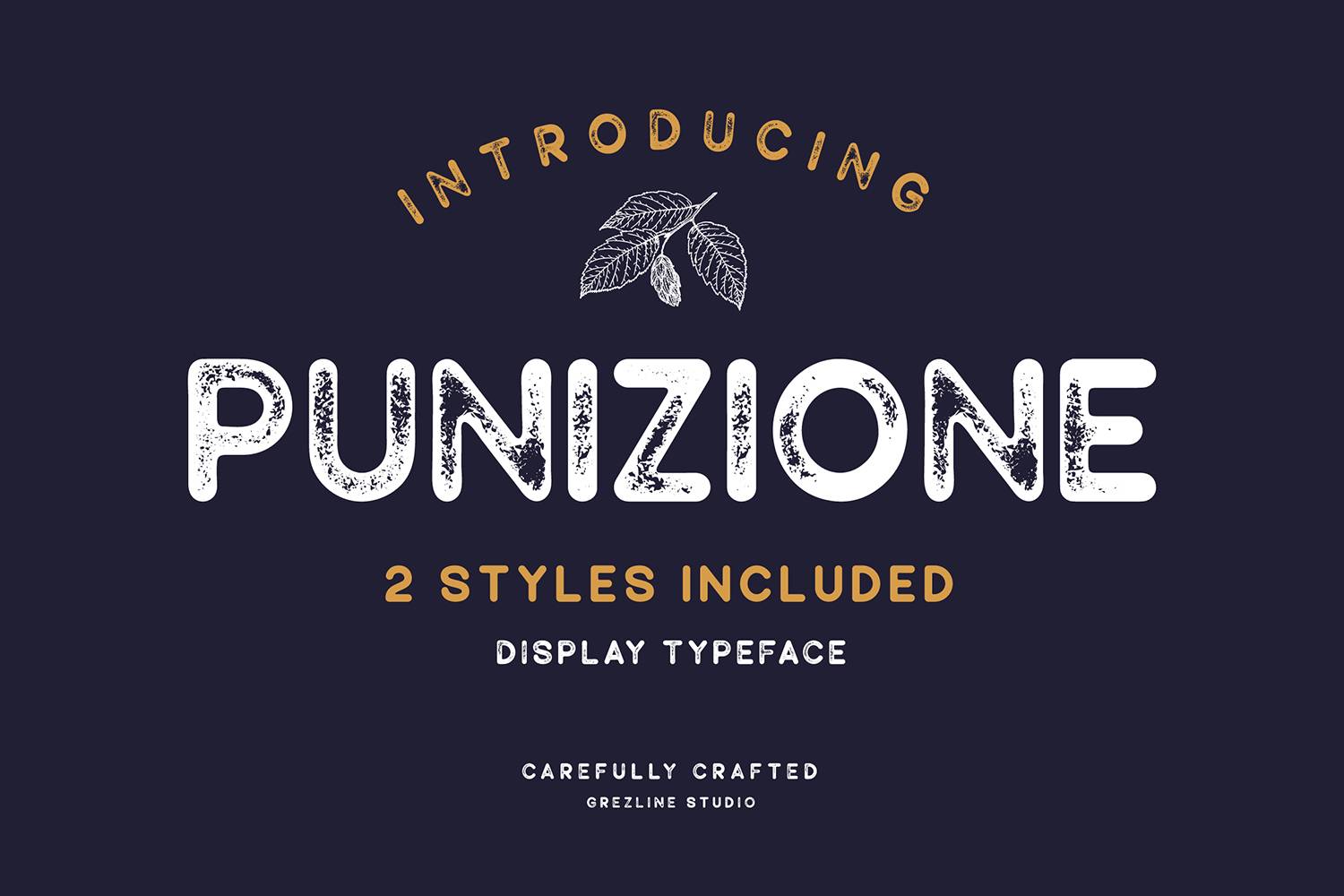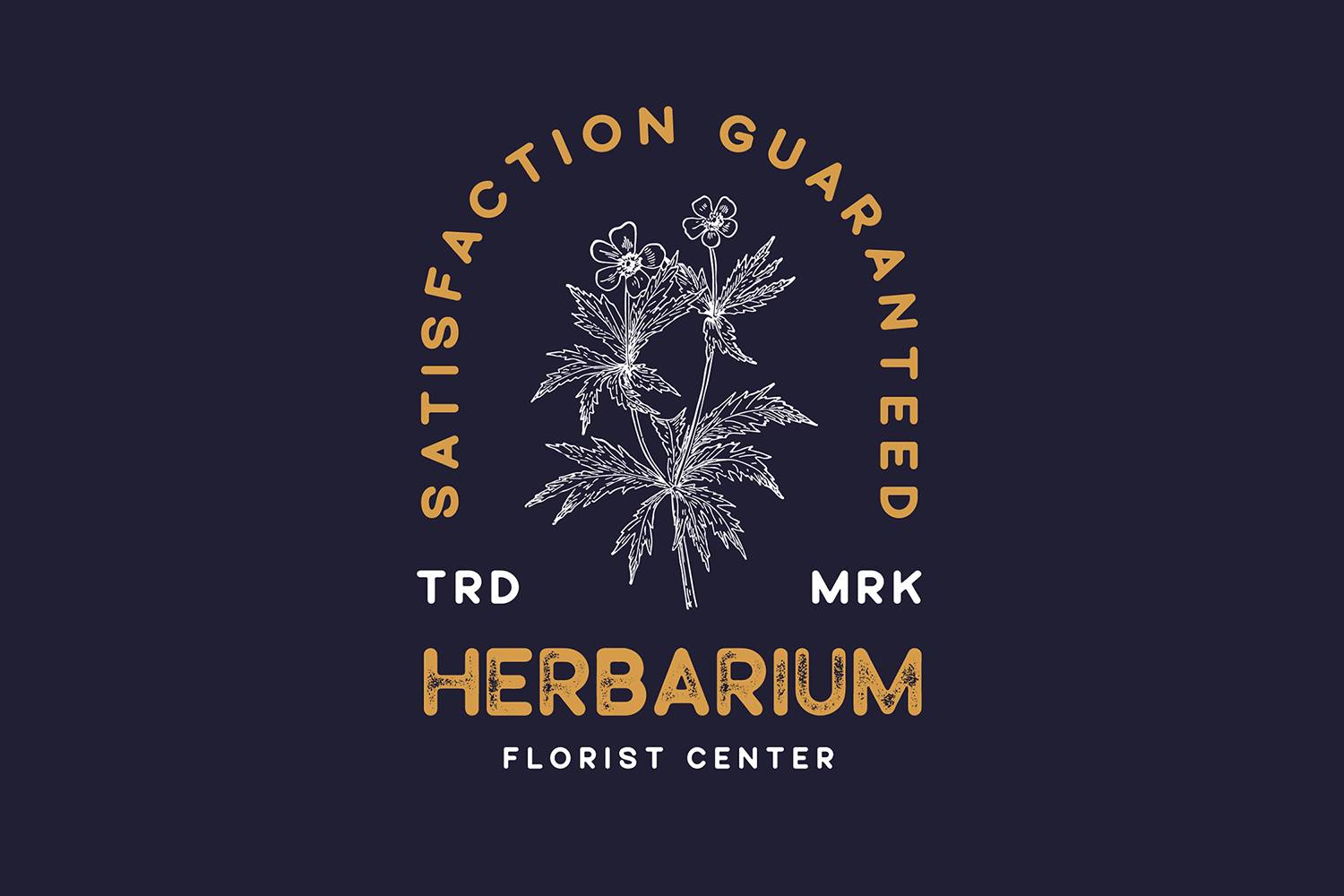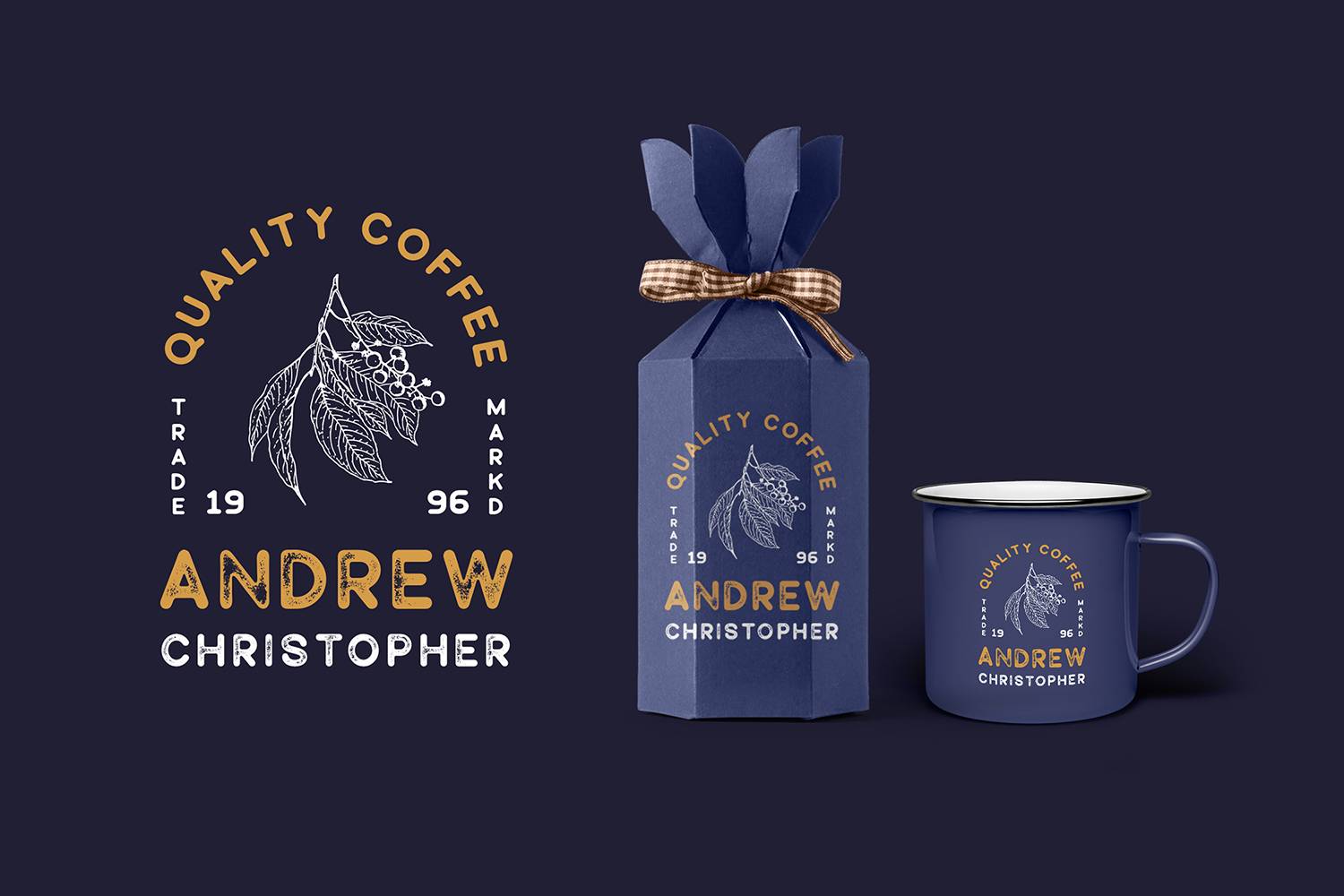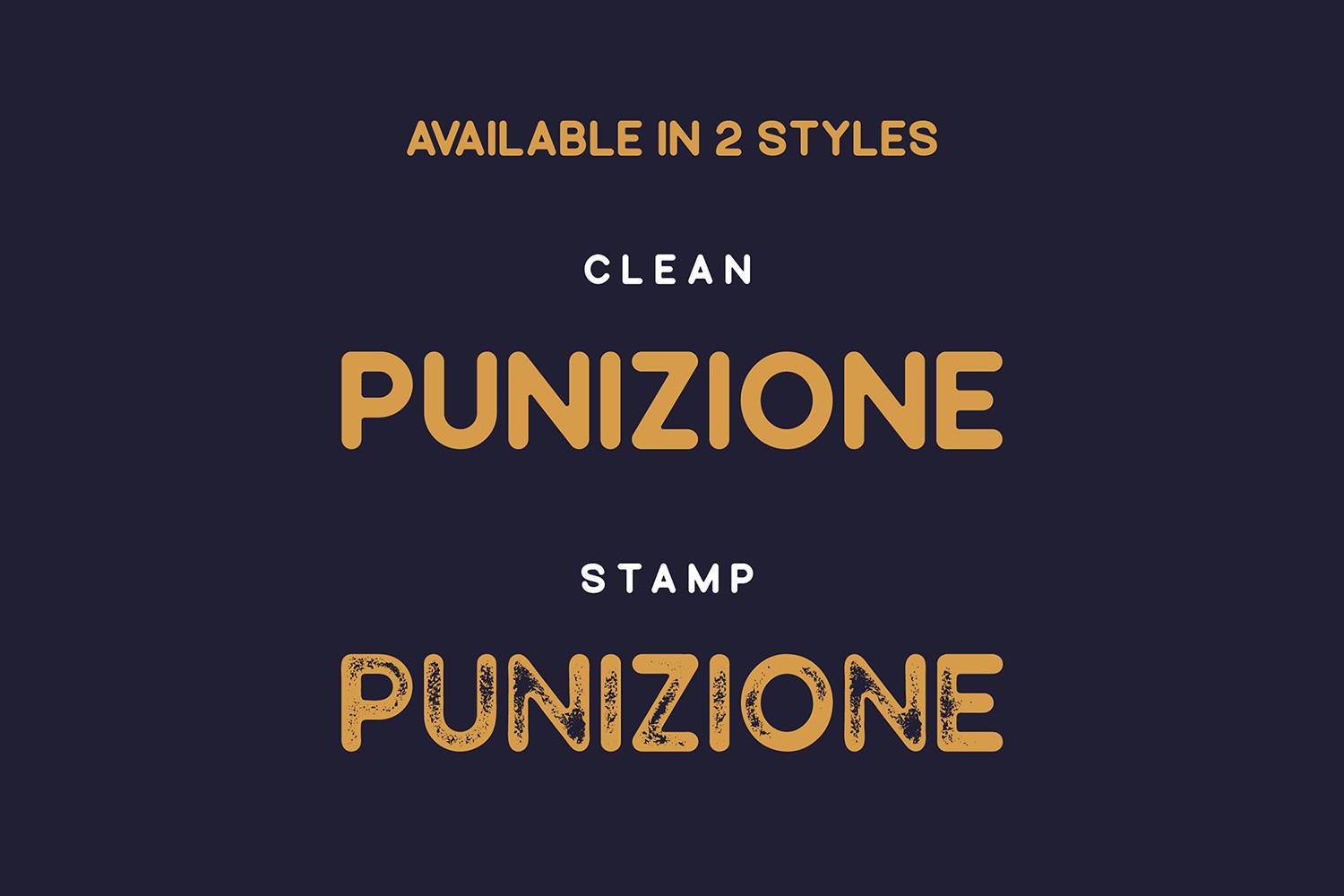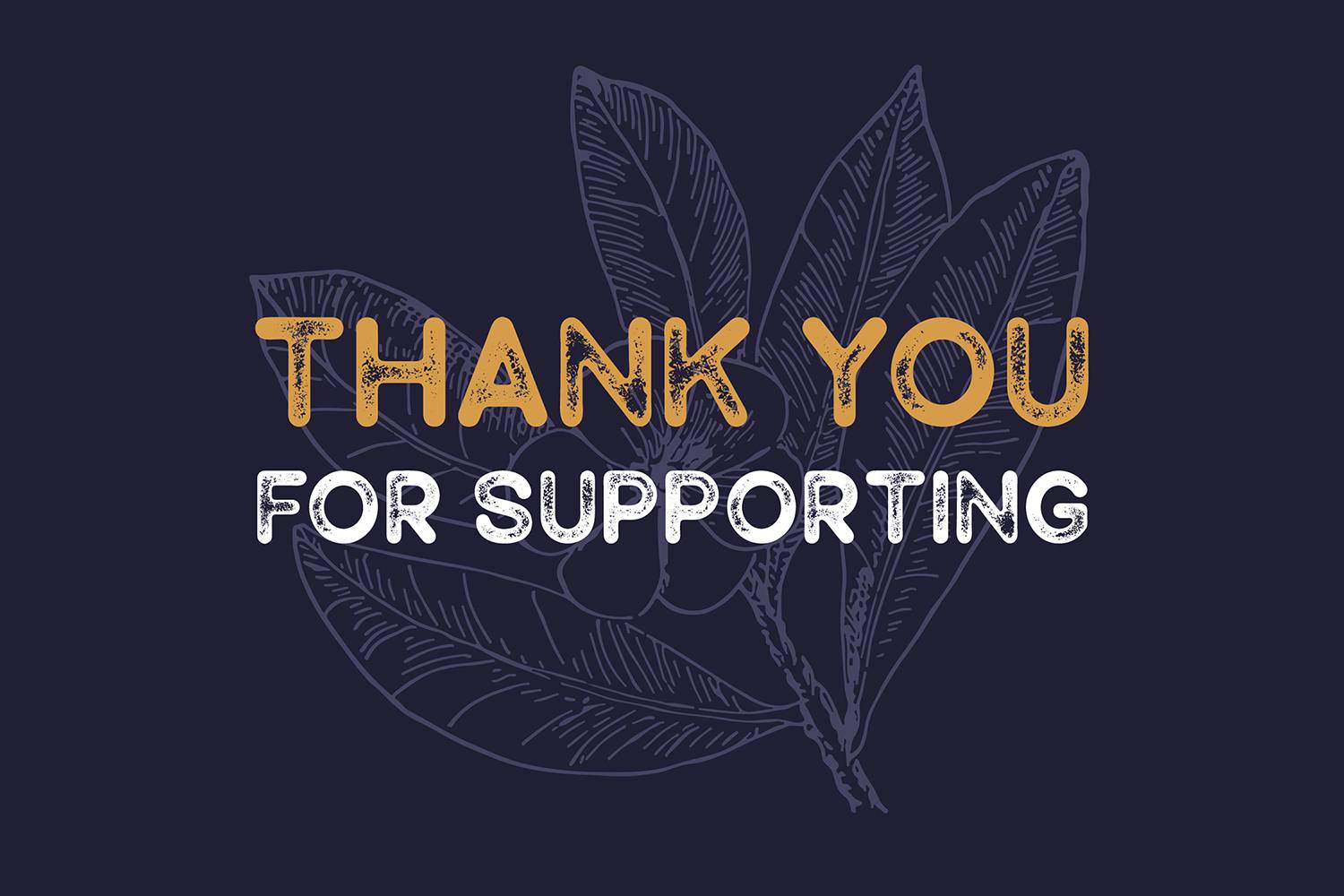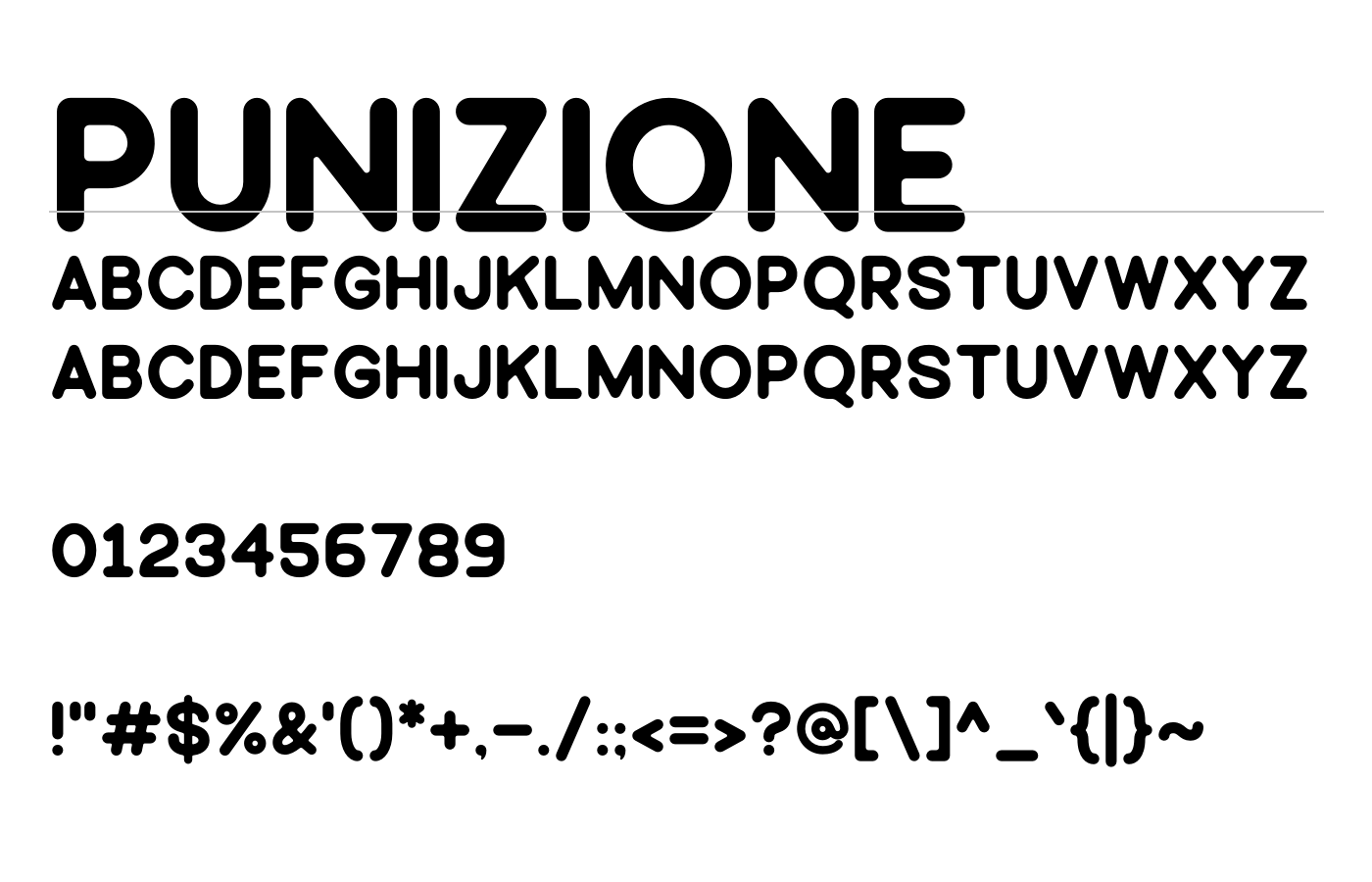
Punizione is a bold, rounded sans serif font with a friendly and modern personality. Its smooth, geometric letterforms and consistent stroke weight make it highly legible and approachable, perfect for branding, headlines, and playful editorial projects. This font works well where a clean, contemporary look is desired without feeling harsh or mechanical.
Punizione Font
About Punizione Font
| Font family | Punizione Font |
| Designer | Akhmad Reza Fauzi |